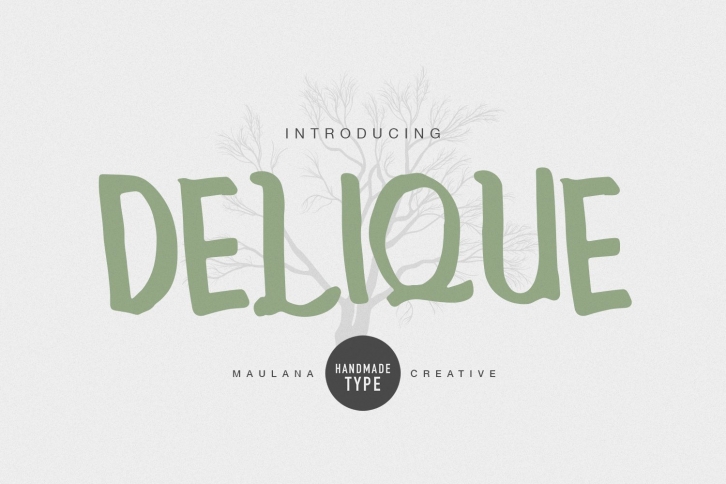
Delique Handmade Type is a beautiful font that was designed by Maulana Creative. It's a great choice for designers and creatives who need such a font. It was released on May 15, 2020 and the file size is 18.48 MB. Delique Handmade Type may give a more youthful, expressive and casual look to your project. It is a very beautiful, refined, elegant, and high-quality font.